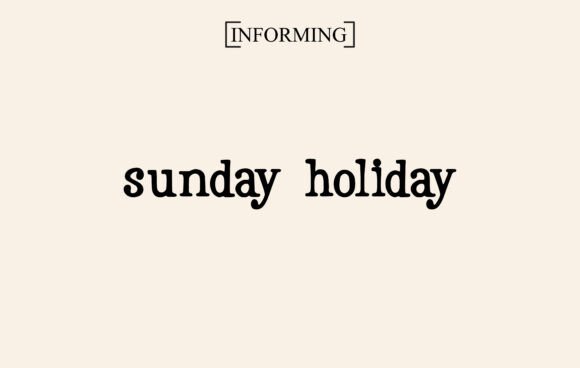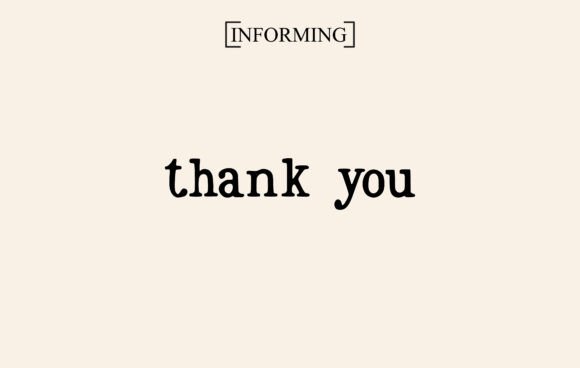
Dove Script Font
Dove Script is a warm, inviting serif font with a gentle vintage tone. Featuring rounded curves and thoughtful spacing, it brings a refined softness perfect for faith-based messages, elegant branding, and sentimental stationery.